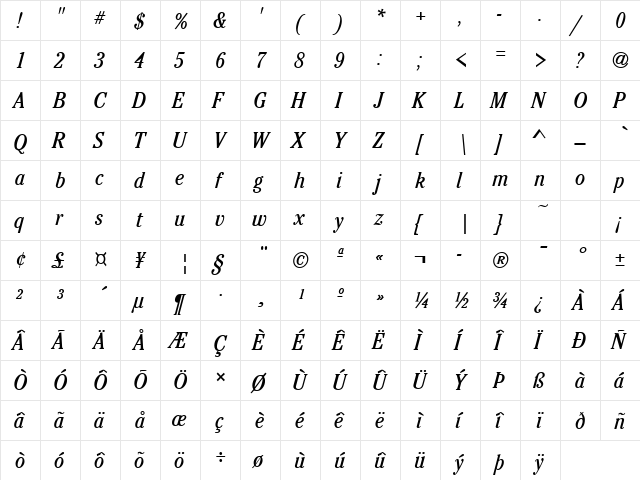
CheltenhamCond Italic
Design Context for CheltenhamCond Typeface
CheltenhamCond offers clean, dependable letterforms without strong stylistic allegiance, making it a practical choice for designers who need flexibility. The dynamic lean of this cut emphasises speed and emphasis in any layout. Its narrow stance lets it pack a punch even in space-constrained designs.
Pro Tip: Try CheltenhamCond for annotation and caption copy alongside an upright companion — the contrast in angle creates a dynamic but ordered typographic system.